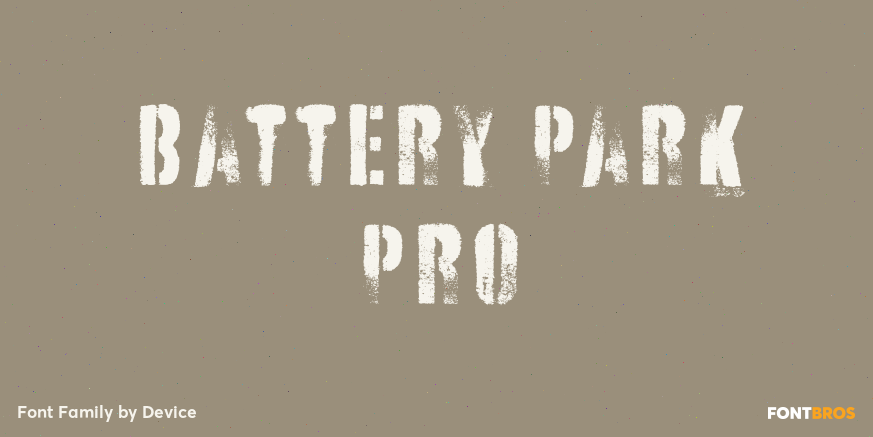
Battery Park Pro
About Battery Park Pro
This stencil font, inspired by a fleeting glimpse of a Bronx plumber\’s van seen through the rain-spattered window of a New York taxi, is evocative of urban grit, knock-down warehouse bargains and military supplies labeling.